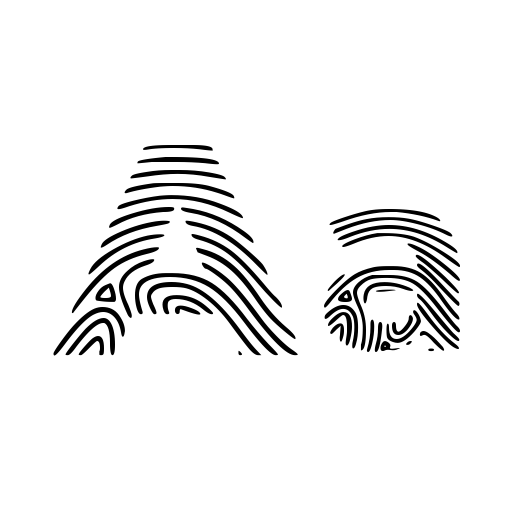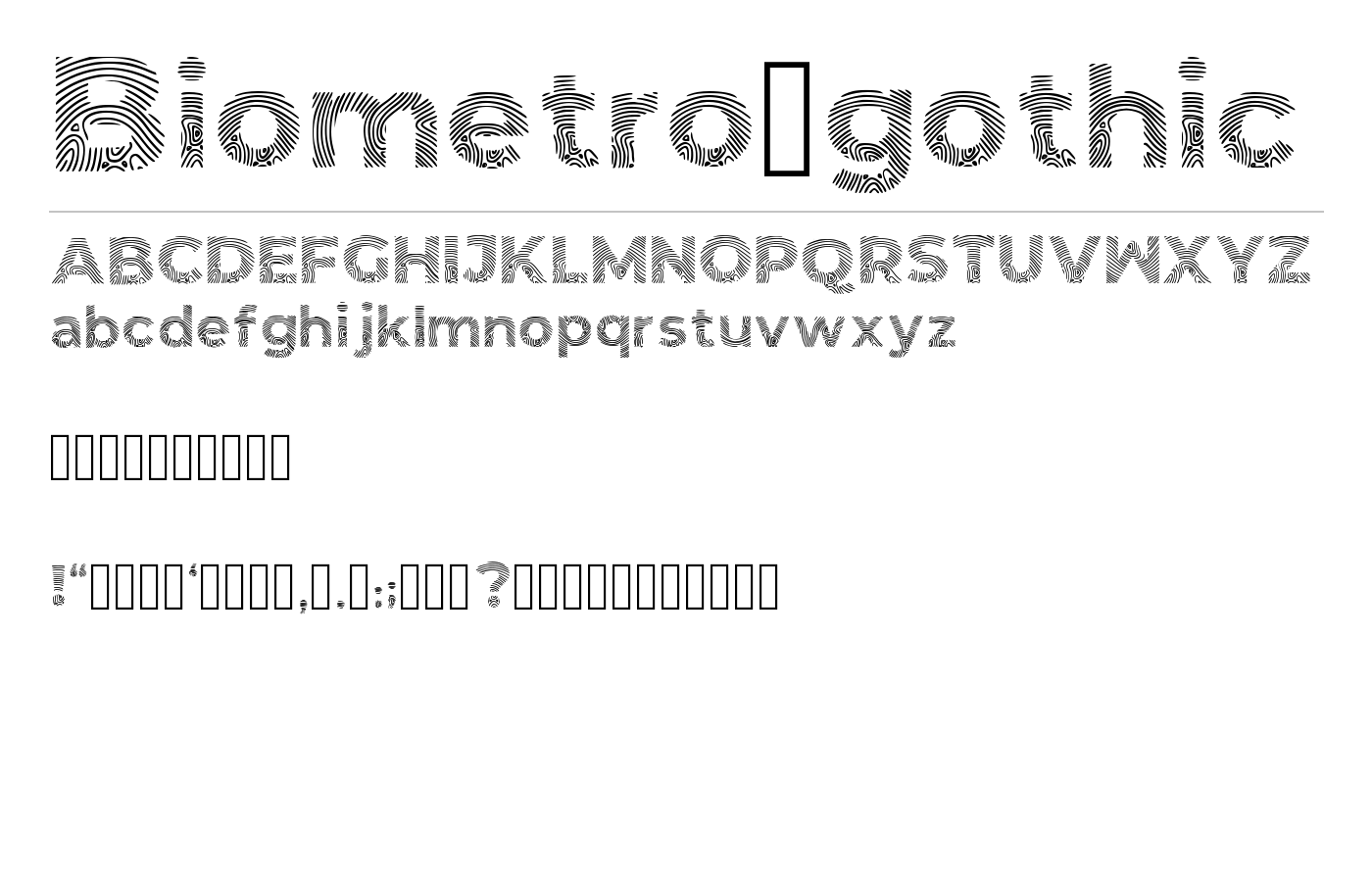
Biometro Gothic is a unique sans serif font characterized by its bold, geometric letterforms filled with a pattern reminiscent of fingerprint lines. Its medium weight and normal width make it striking and legible, while the intricate striped texture adds a modern, tech-inspired personality suited for creative and futuristic branding. This font works especially well in headlines, logos, and posters where its distinctive style can capture attention and convey innovation.
Biometro_gothic Font